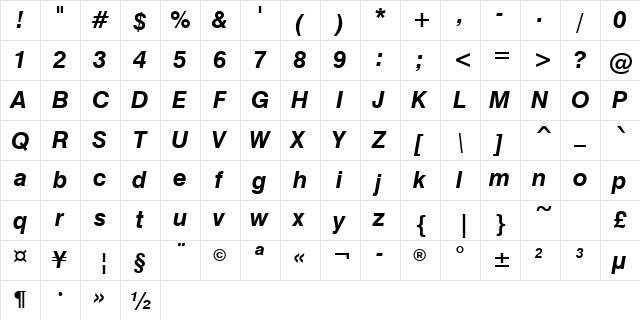
Swis721Greek BT Bold Inclined
Design Context for Swis721Greek BT Typeface
Swis721Greek BT offers clean, dependable letterforms without strong stylistic allegiance, making it a practical choice for designers who need flexibility. Its bold stroke weight gives it real presence on the page.